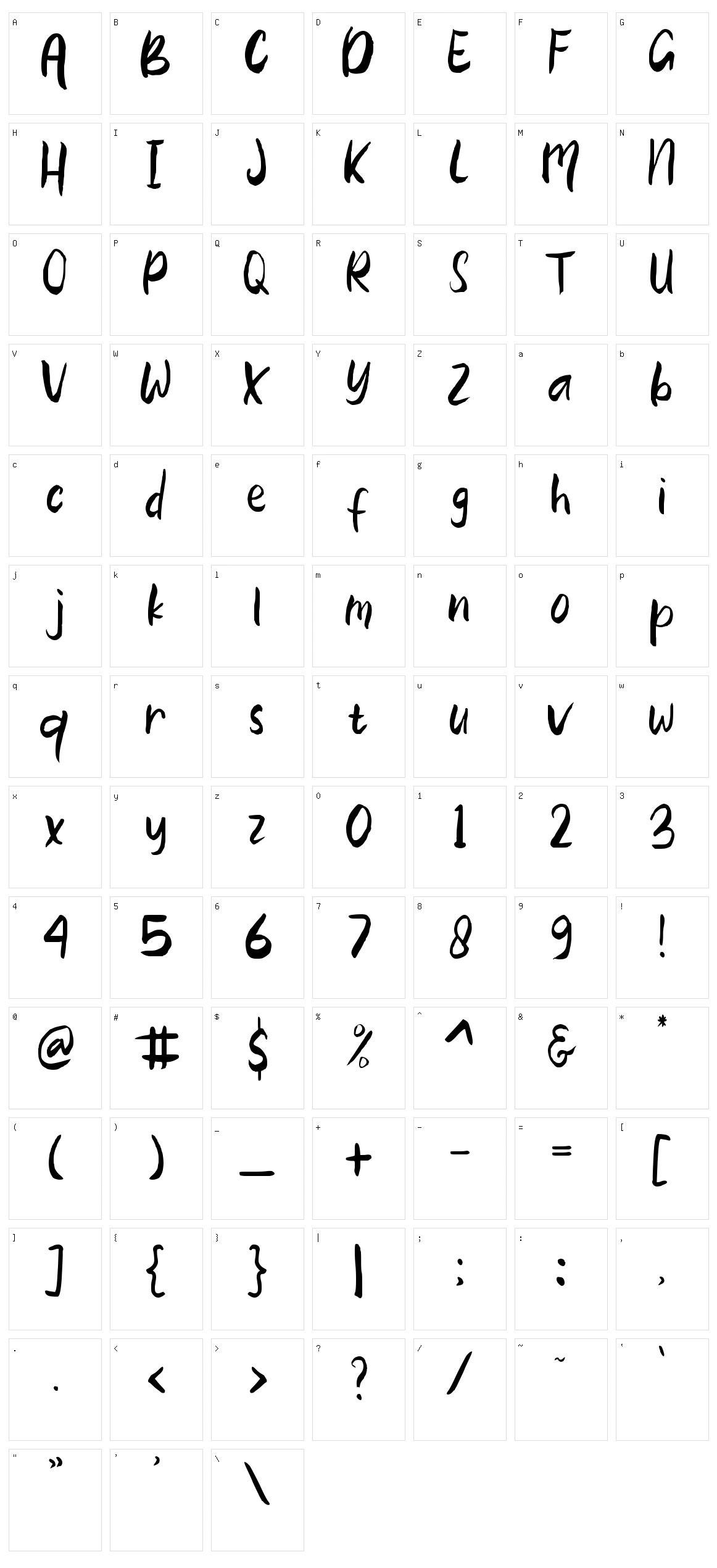
The free font The Zackly is carefully designed by Nuun Design, showcasing a thoughtful balance of creativity and usability and falls under the Script font style. When you download the ZIP file, it contains only 31.05 KB of font files, making it lightweight and quick to download. Please review the license details below to understand permitted usage and distribution rights. If license information is not available, we recommend using this font for personal projects only or contacting the author directly for commercial usage permissions.